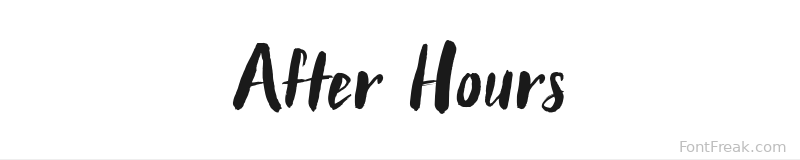
After Hours
About After Hours
The After Hours font by BLKBK Fonts is a striking display font that combines elegance with a casual flair. As a decorative typeface, it features a unique handwritten style that exudes warmth and personality. The strokes of After Hours are characterized by a medium weight, providing a balanced contrast that enhances readability while maintaining a playful aesthetic. The letters display a slight slant, adding a dynamic quality, while the spacing is generous enough to ensure clarity without sacrificing character.
This font is particularly well-suited for a variety of creative applications. It shines in wedding invitations, where its charming script can evoke romance and intimacy. Additionally, After Hours works beautifully on movie posters, giving a modern touch to titles and taglines that demand attention. Restaurant menus also benefit from the font's inviting appearance, making dishes seem more appealing and enhancing the dining experience. Content creators can utilize this font for personal branding, social media graphics, or promotional materials that aim to engage their audience with a more approachable tone.
Targeted toward graphic designers, small business owners, and content creators, After Hours offers versatility and style that can cater to various design needs. The font is ideal for those looking to convey a sense of creativity and individuality in their projects.
What truly makes the After Hours font stand out is its ability to blend sophistication with a relaxed vibe, making it perfect for both formal and informal settings. With its freeware license, designers and creatives can easily access the After Hours font free download, allowing them to incorporate this unique typeface into their designs and elevate their visual communications.